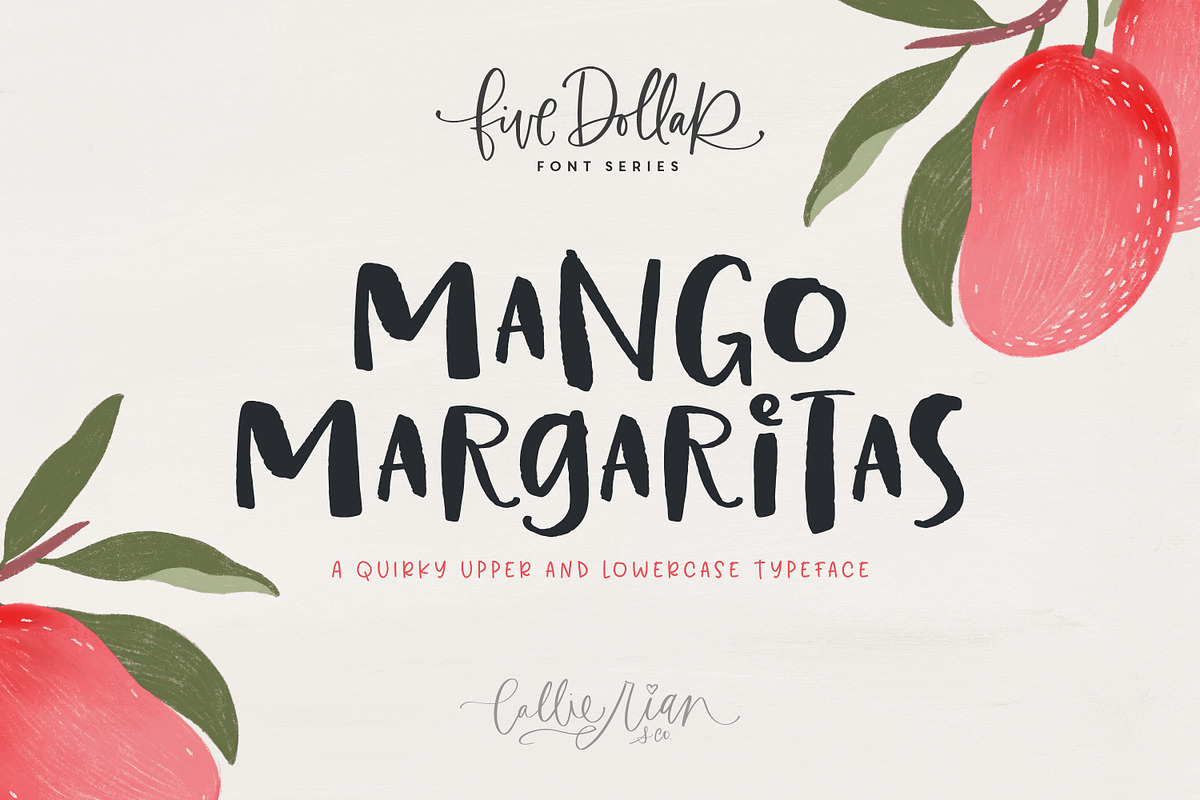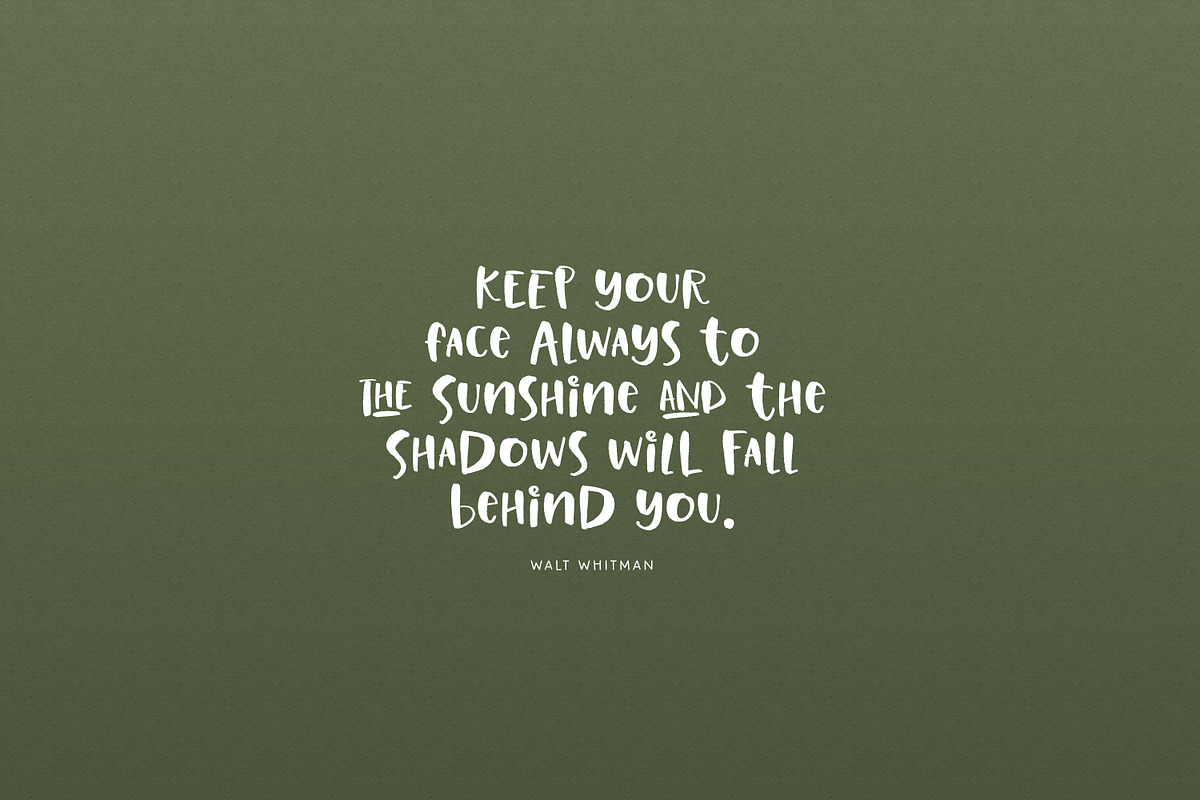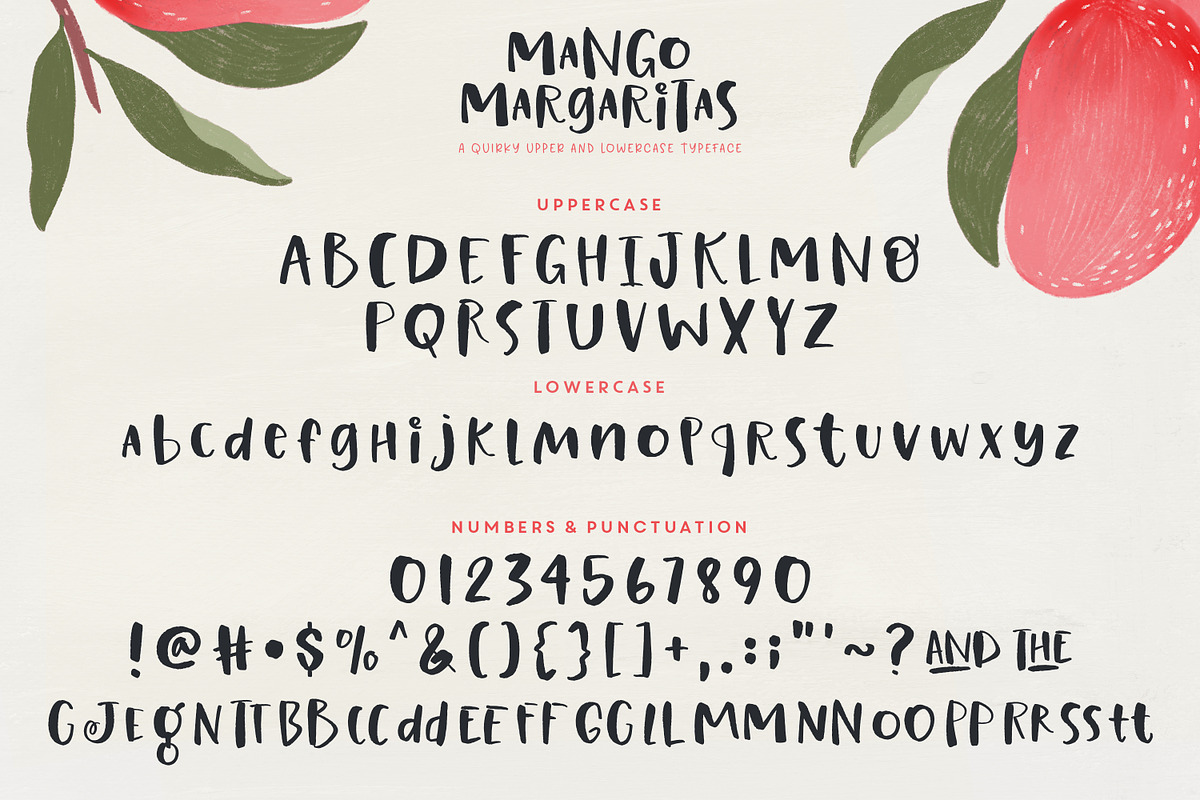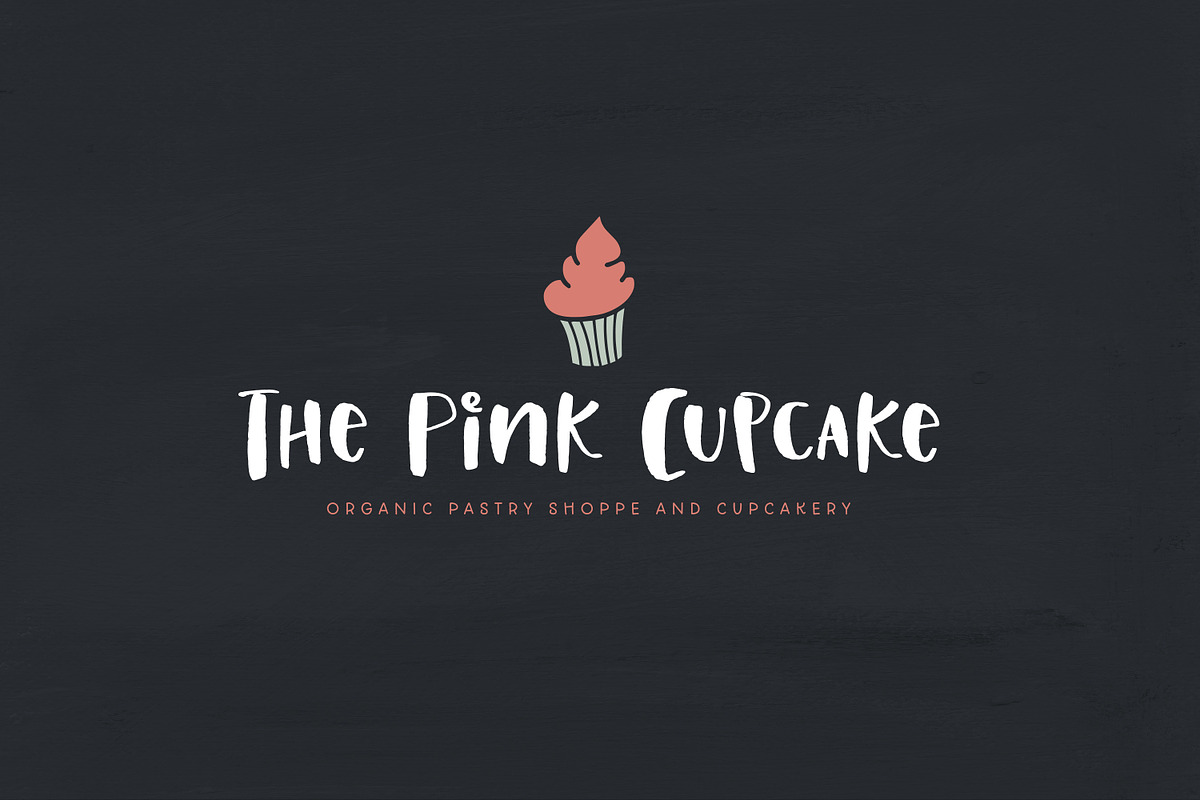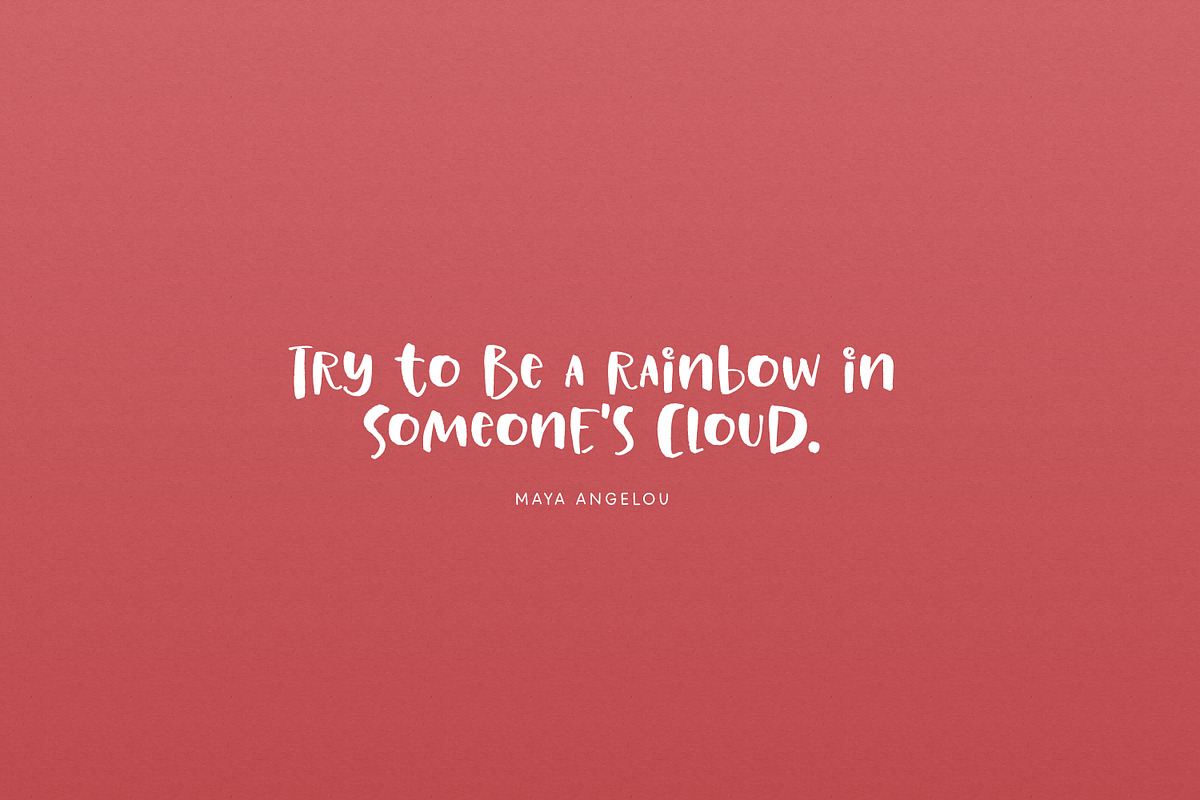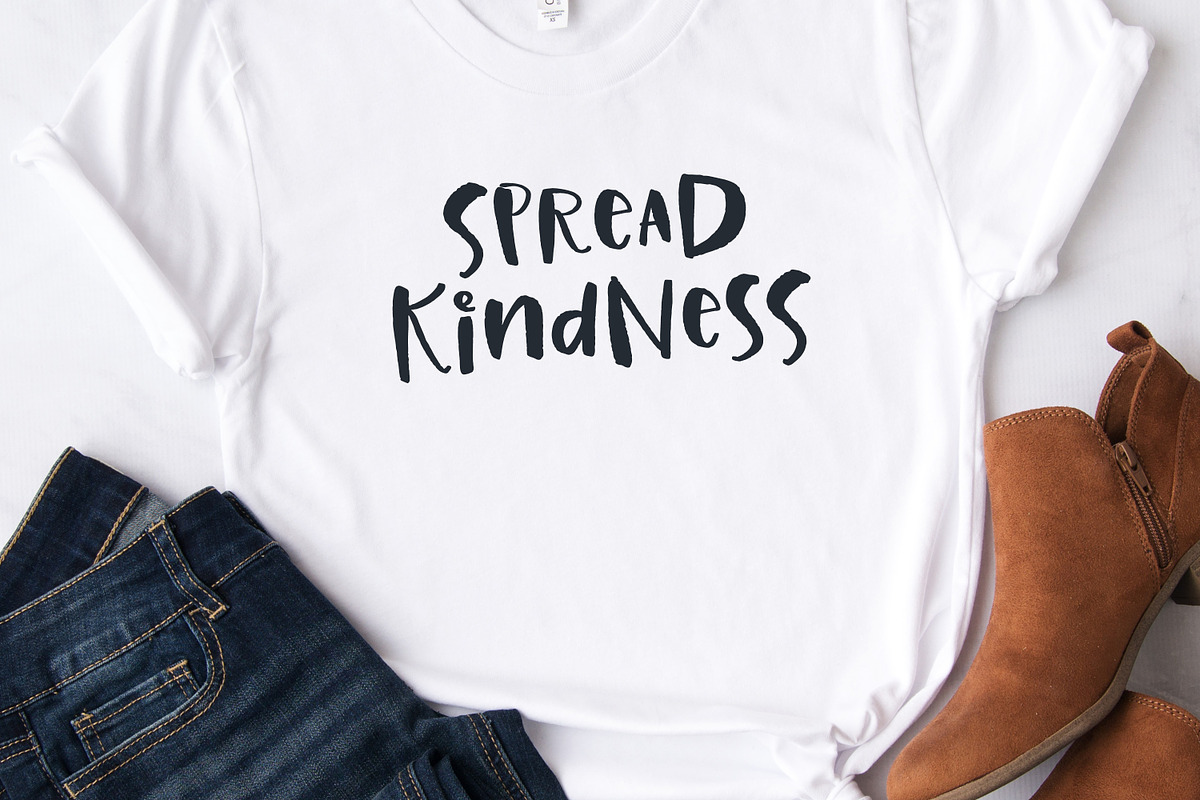
Mango Margaritas Typeface
I just love this one! Introducing Mango Margaritas, a super quirky typeface, featuring thick, irregular strokes and dirty edges. This font is so adorable on children’s branding, apparel, quotes & logos.
- English Only Glyphs with double letter ligatures, select alternates & two catchwords.